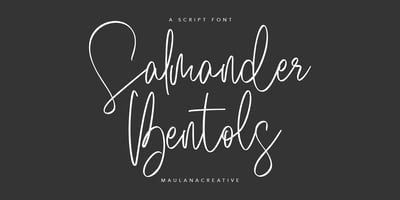
Salmander Bentols Script
Salmander Bentols Script font
Salmander Bentols Script Font Family was designed by Gilang Maulana and published by Maulana Creative. Salmander Bentols Script contains 1 styles and family package options. Give your designs an authentic handcrafted feel. “Salmander Bentols Script” is perfectly suited to signature, stationery, logos, typography quotes, magazine or book covers, website headers, clothing, branding, packaging design and more.Salmander Bentols Script contains:- Ligatures- Multilingual Supportand is easy to instal Mac and Windows.